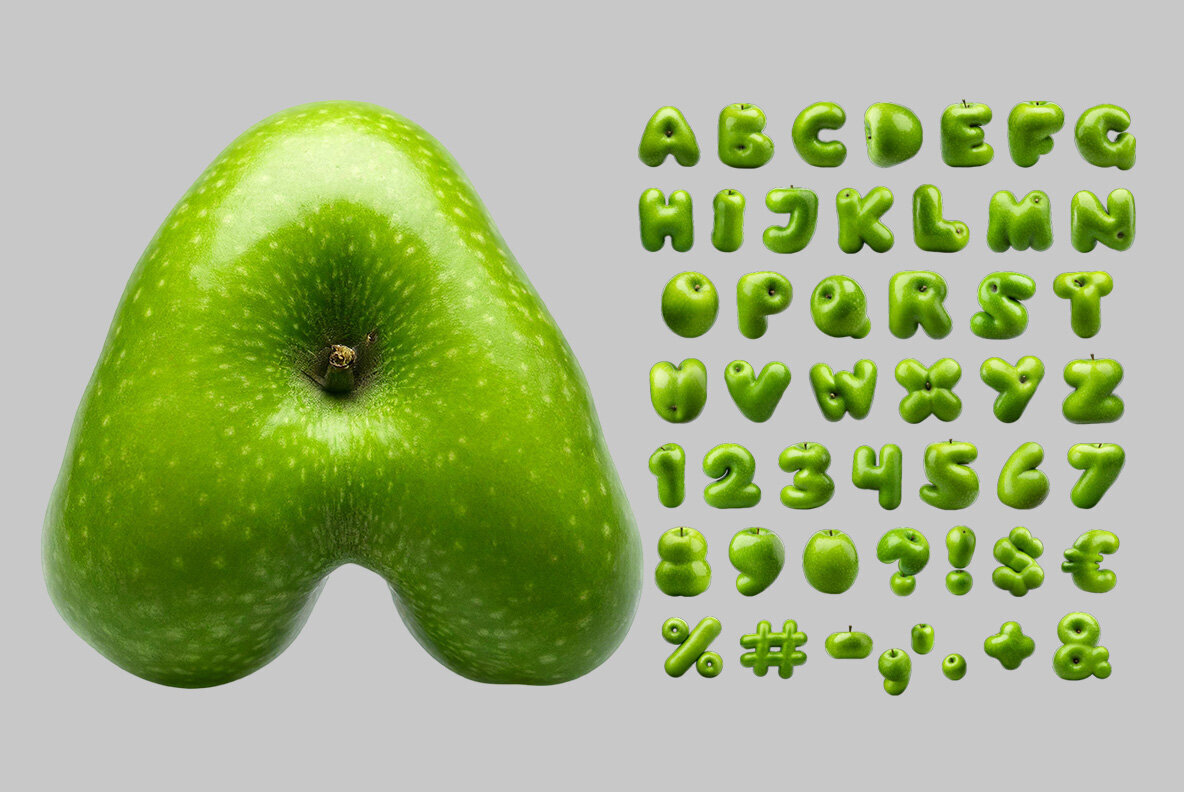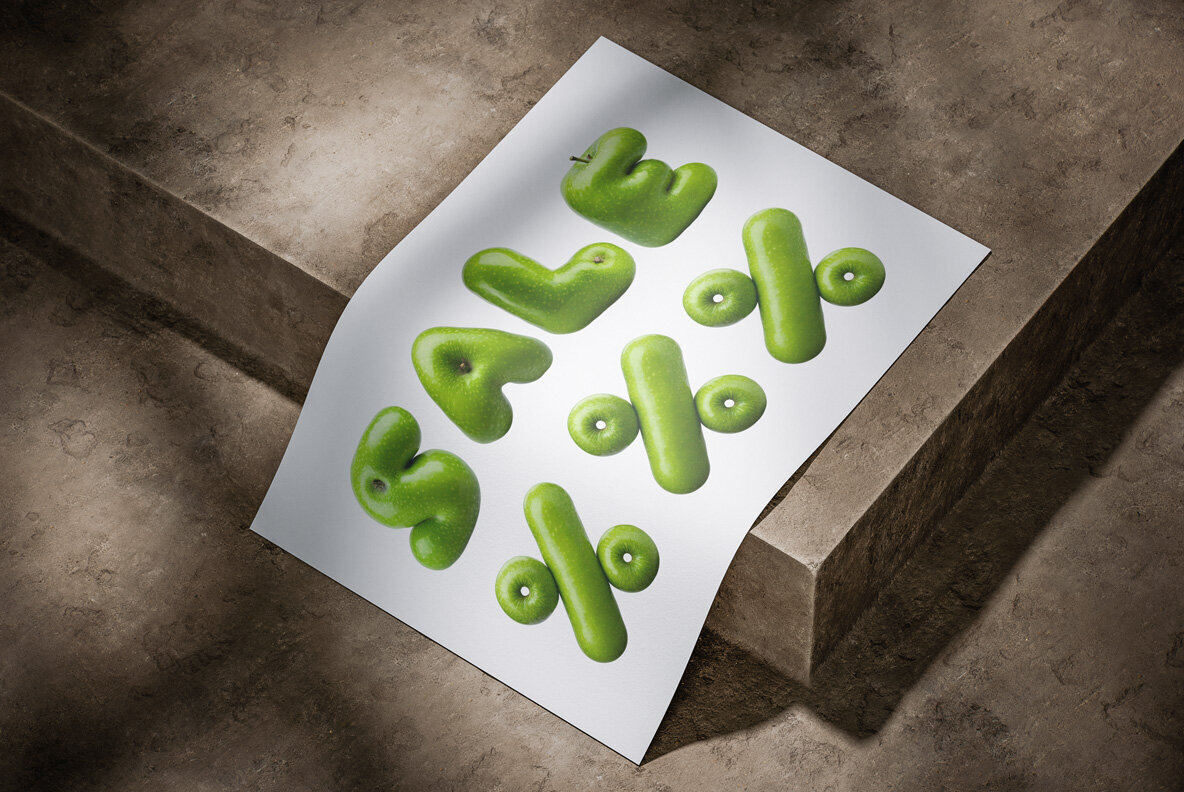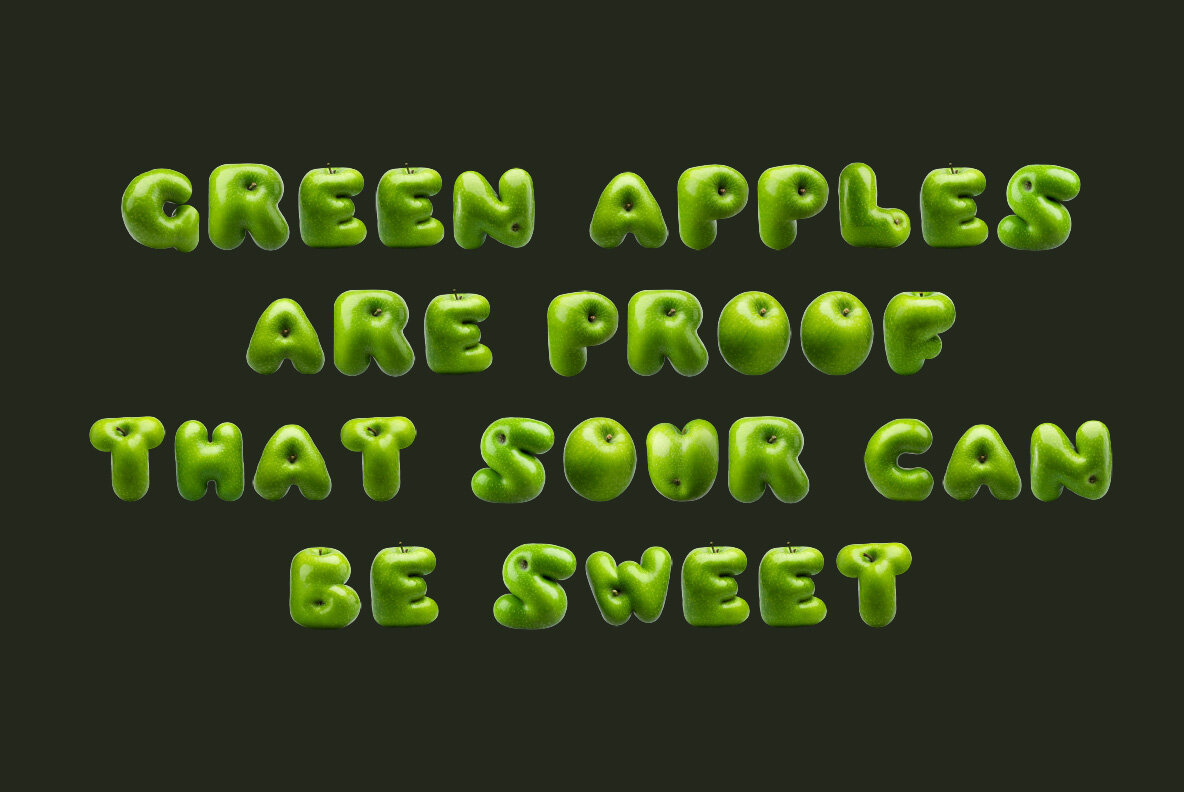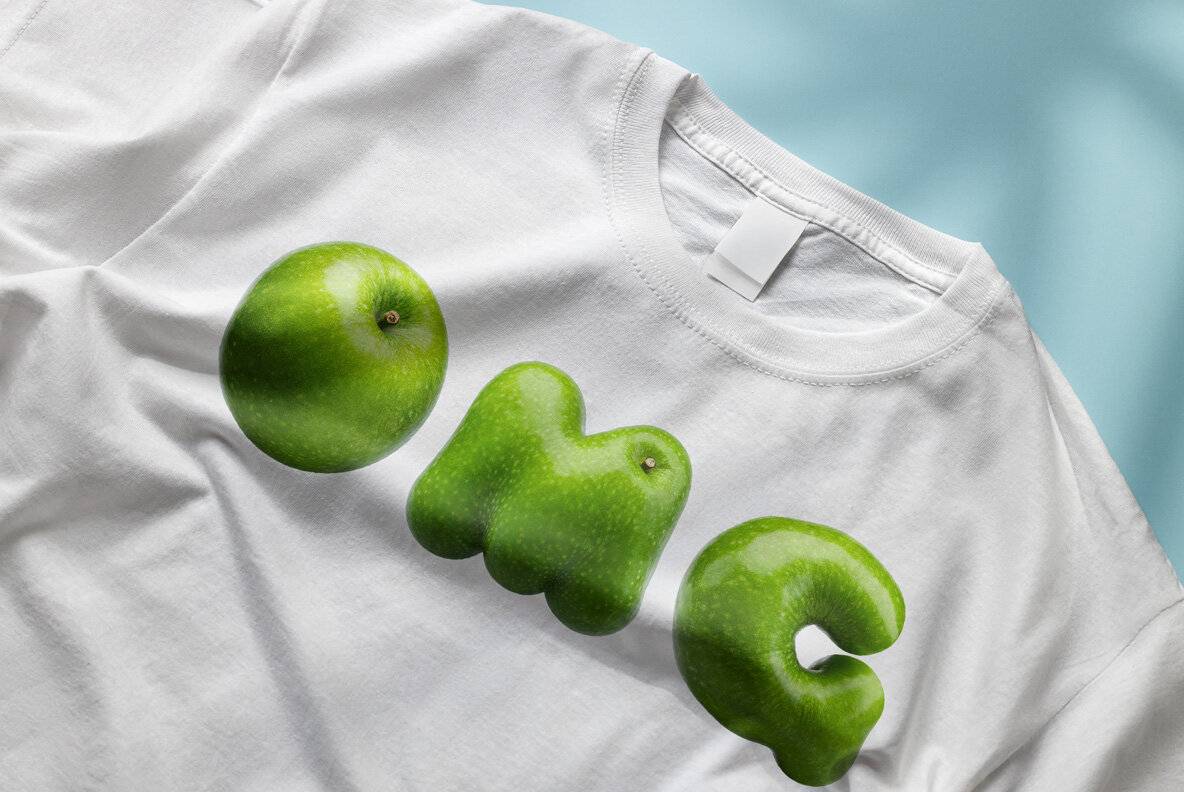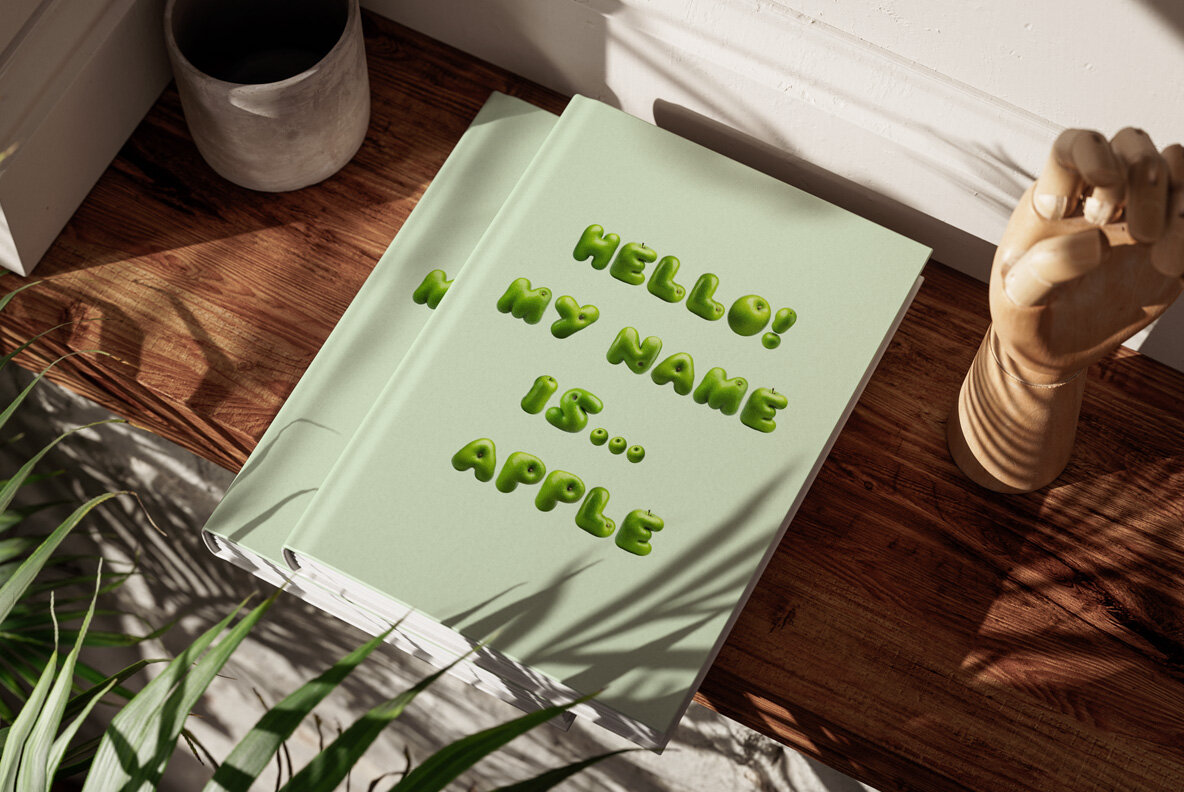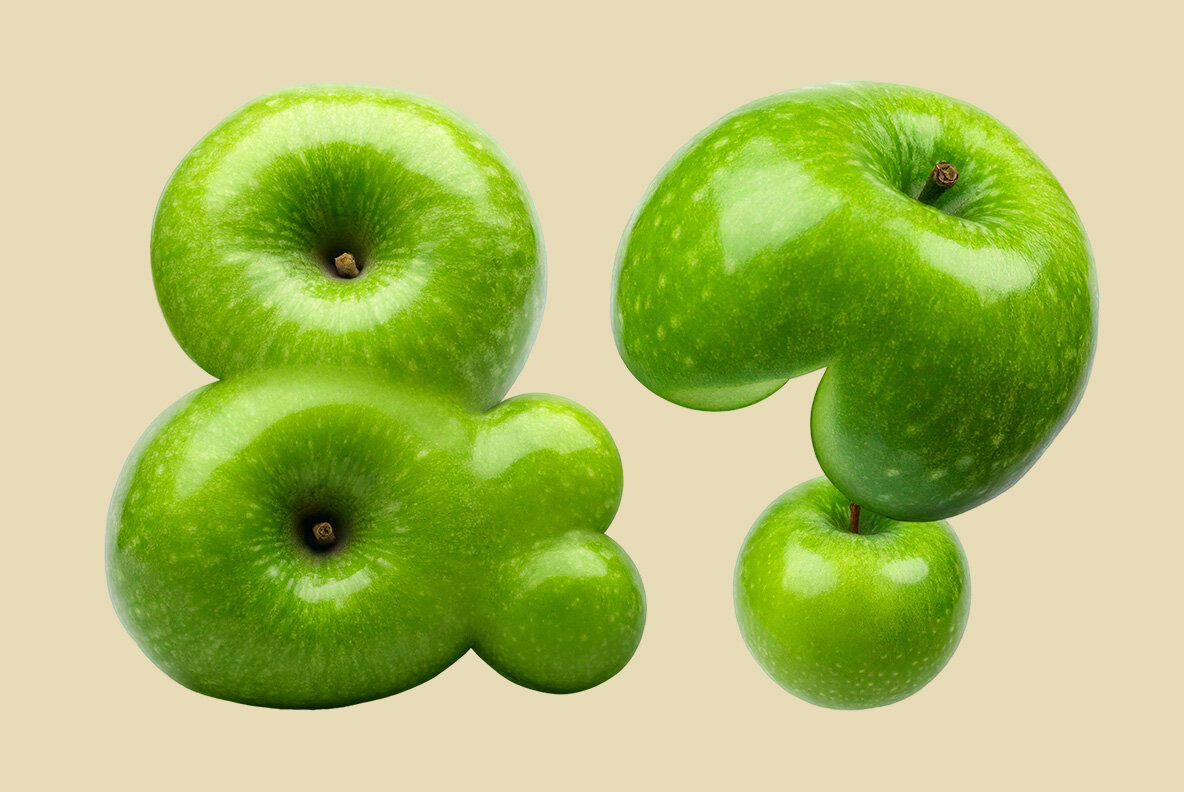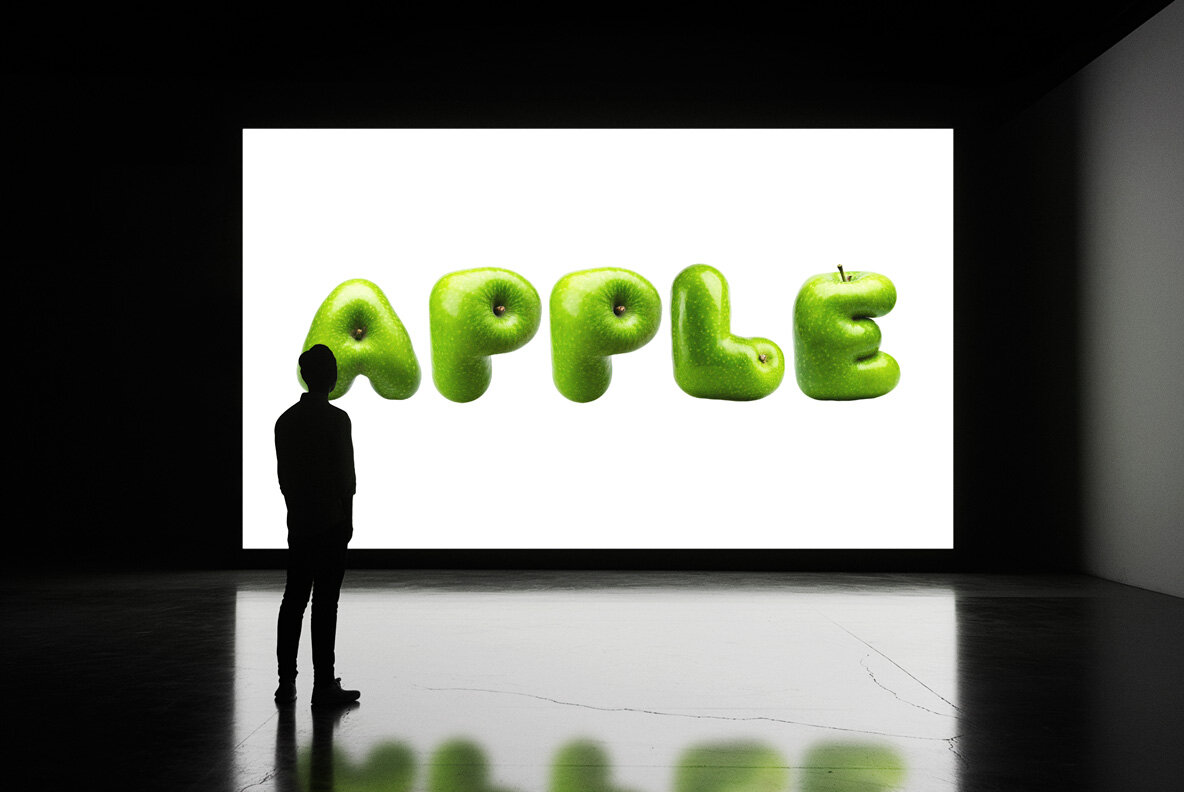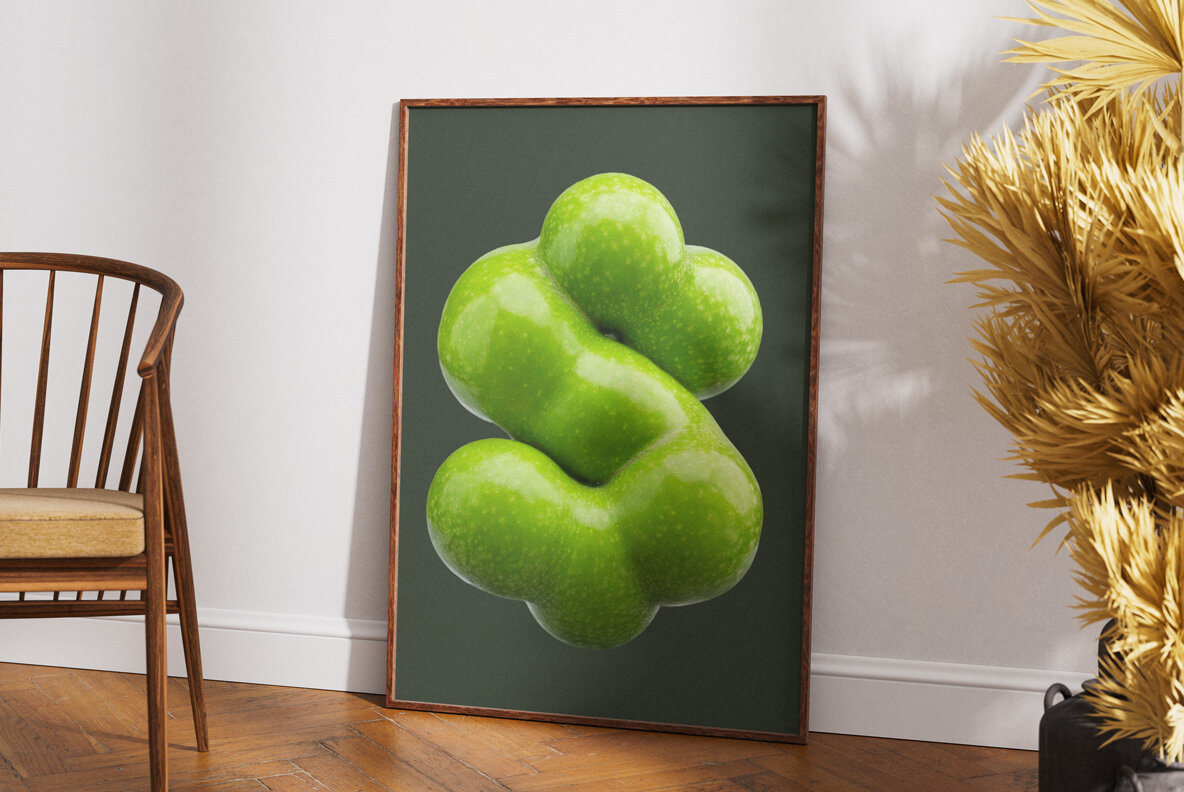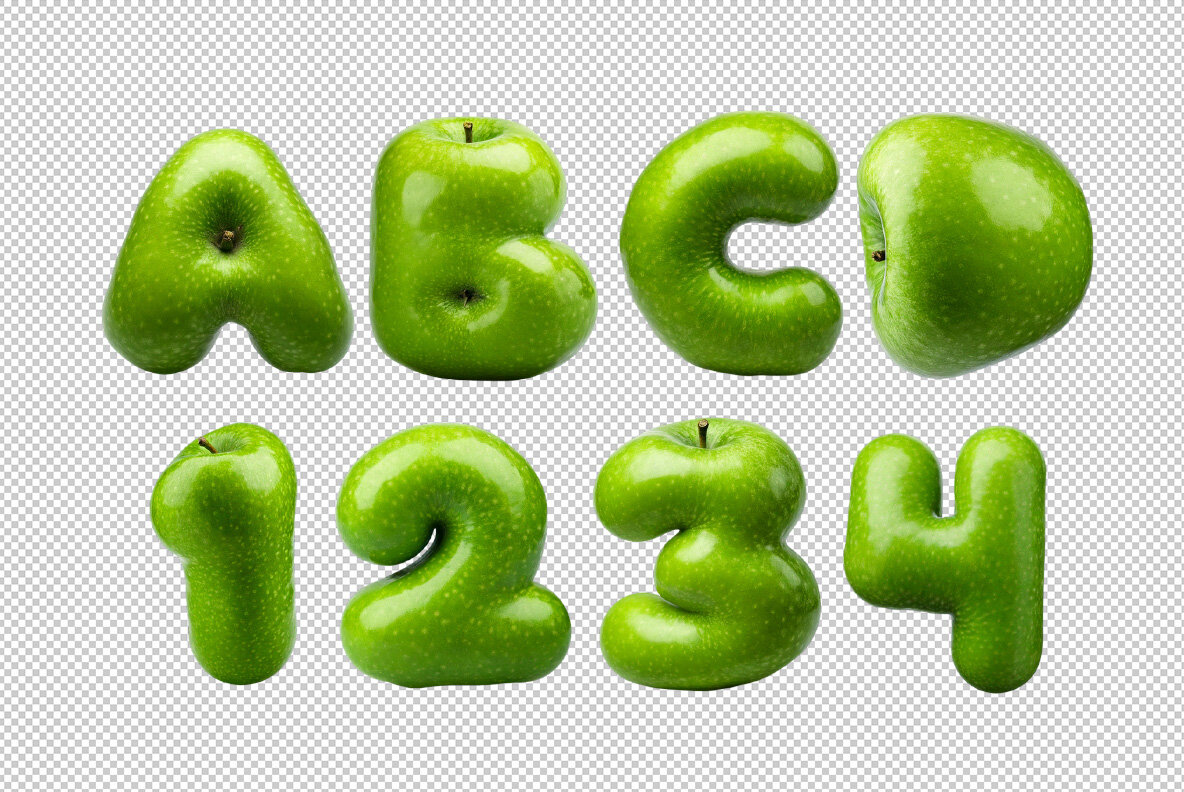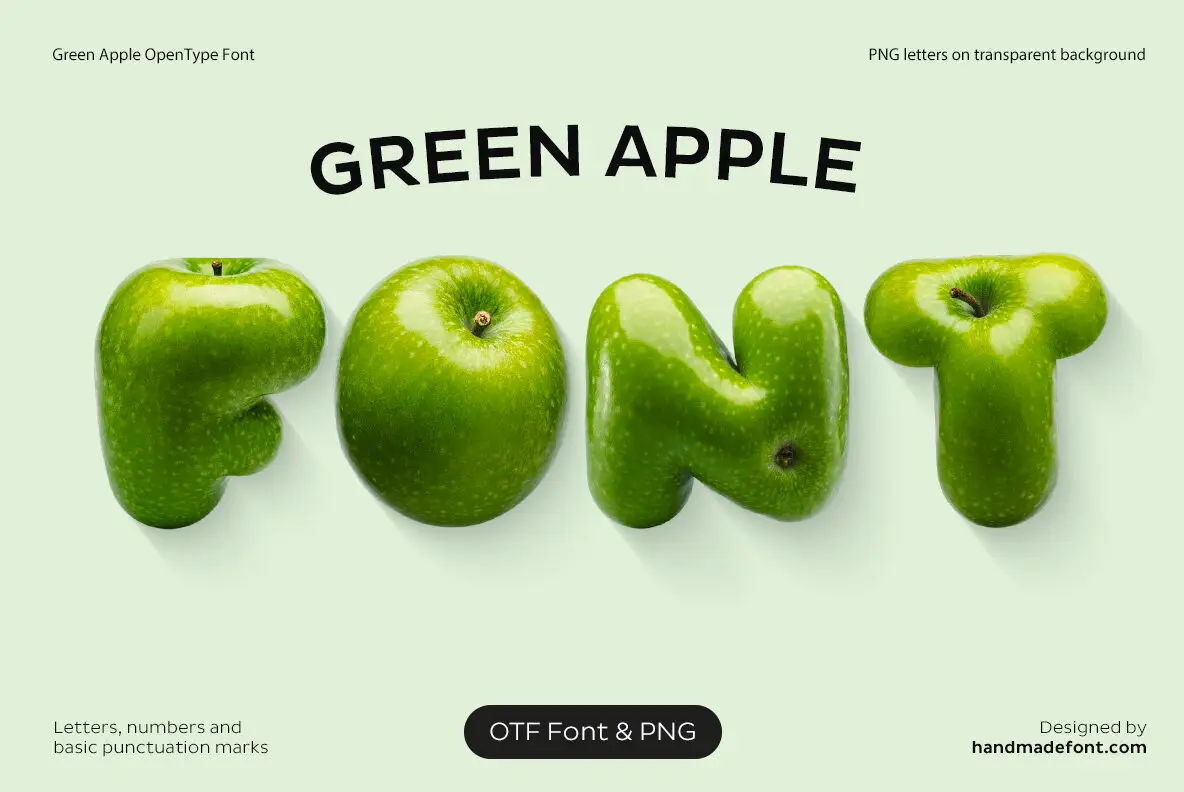
Green Apple Font brings a touch of freshness and playfulness to any project. Each letter is creatively designed to resemble a juicy green apple, making it a perfect fit for designs that crave a fruity flair. Ideal for use in logos, posters, and projects targeted at foodies, children, or apple enthusiasts, this typeface promises to grab attention with its unique look. Each letter's draw height is roughly 800 pixels, ensuring crisp and clear expression in any design application.